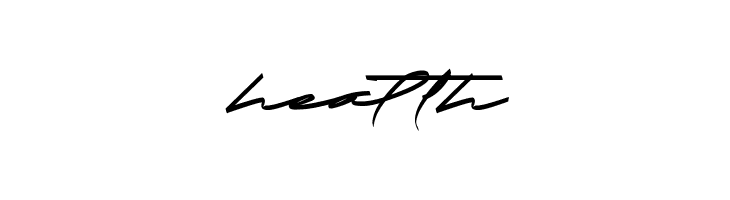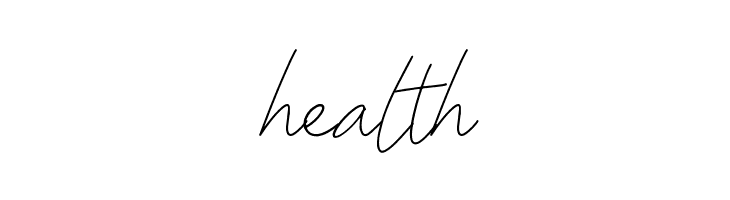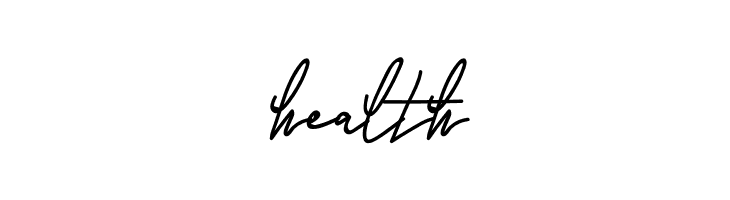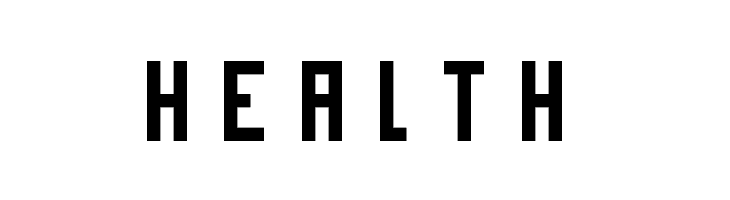
A dynamic, cursive handwritten font with fluid strokes.
A delicate and flowing script font with elegant curves and thin strokes.
A flowing, cursive script font with elegant, handwritten characteristics.
A playful, bold font with rounded edges and a hand-drawn style.
A delicate and elegant script font with flowing, cursive letterforms.
A geometric, modern font with sharp angles and a cohesive structure.
A bold, distressed font with a rugged, vintage look.
A lively, expressive script font with fluid, dynamic strokes and a personal touch.
A dynamic, cursive script font with elegant slants and lively contrast.
A dynamic and flowing script font with elegant cursive letterforms.